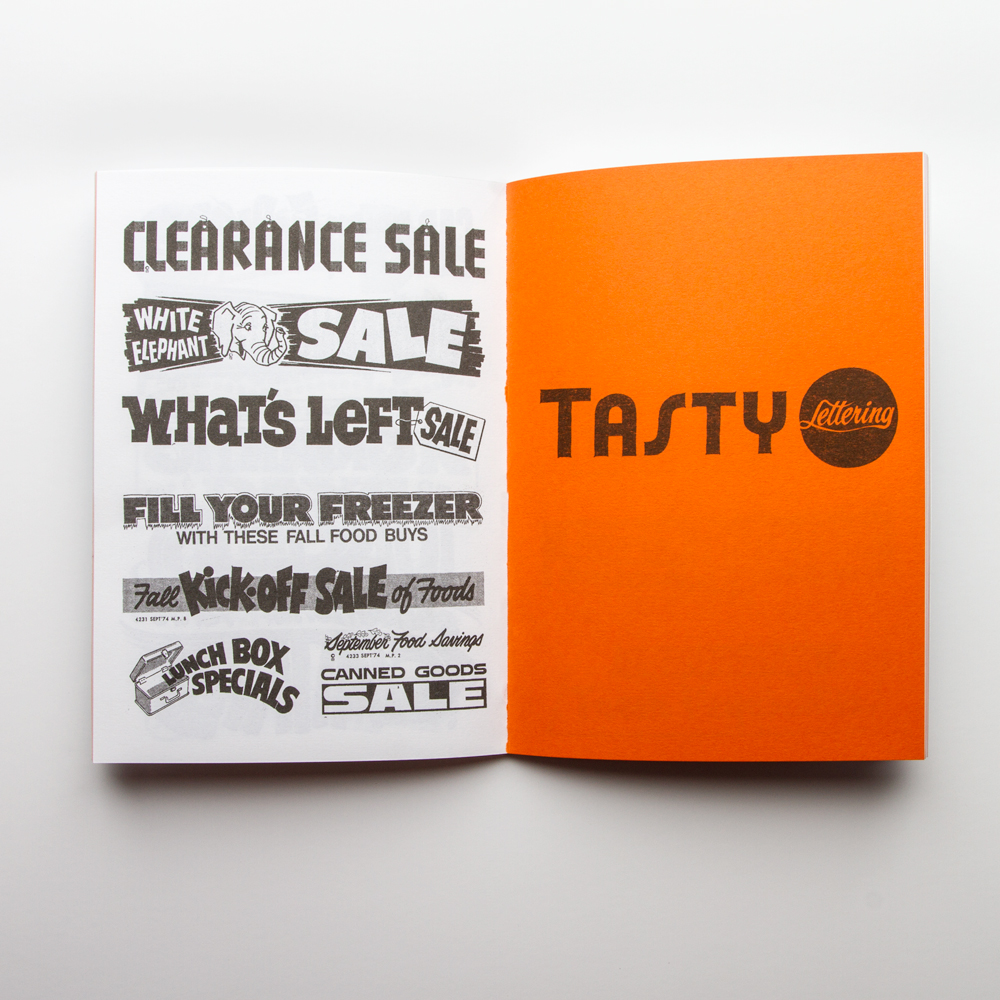
More Than Just Reference Mike Meyer's Morgue File
Mike Meyer has specialised in sign painting for many years and never seems to lack inspiration. Over time Mike has collected material from different sources to help keep himself inspired, and now some of that material from Mike's collection has been organised into a book titled 'Morgue File Book 1'. The book has been published in partnership with Mike Meyer, A.S Handover, Better Letters and Alice Mazzilli.
Mike grew up and still lives in a town called Mazeppa located within Minnesota. The town is very small and has less than a thousand people living in it, which can make finding new sources of inspiration a challenge. In his younger days Mike would watch his father paint signs, and also spend time replicating the signage he had seen on cars onto model cars of his own. As he got older he attended sign school and learnt more about the art, and after some life detours launched his own sign painting business.
Mike Meyer Sign Painting
At sign school Mike learnt from his teacher that it was good practice to keep a handy resource of reference and inspiration, which his teacher referred to as a 'Morgue File'. Keeping a 'Morgue File' was probably a really important step for Mike because of the limitations that can come from living in a small town. Nowadays because of the internet there's almost no excuse for not collecting reference and inspirational material wherever you happen to be located. The internet wasn't around for a great deal of Mike's career so he sought out lettering inspiration from where he could. Mike found inspiration from newspaper cuttings, advertisements, leaflets, magazines and more, collecting them in his own Morgue File.
Now after years of collecting Mike has a fantastic file of lettering, some of it capturing eras that are slowly becoming forgotten.
The paper in 'Morgue File Book 1' has been provided by specialists G.F Smith. The book is divided up into sections making it easy to browse, and each page has been printed on Munken paper. The section titles have been hand lettered and are printed on vibrant orange Colorplan paper. You can find exciting sections like 'Big & Blocky' and 'Fuel for Thought' along with many others throughout the book. It doesn't really matter which you specialise in, whether it's sign painting, brush lettering or illustrative lettering, this book will provide inspiration for all.
This won't be the kind of book you look through just once, it will provide inspiration time and time again. I haven't had this book all that long but I've already found myself browsing through it numerous times, spotting new pieces of lettering that I've over looked previously where there is so much to see.
The book has a nice printed look and feel about it which works well with the type of content it contains, and was achieved by using a Risograph printer. It's clear just as much time and effort has gone into the production of the book as Mike has spent collecting the lettering featured within it. To discover more about the production of 'Morgue File Book 1' head over to Better Letters, where you will find a feature including a couple of videos.
Mike is lucky in that he knew he always wanted to be a lettering artist, and his 'Morgue File Book 1' truly reflects the passion he has for collecting lettering. I'd guess, as this is 'Book 1' and Mike has much more he's yet to share from his collection there will be a second book at some point in the future, and I already can't wait to see it.